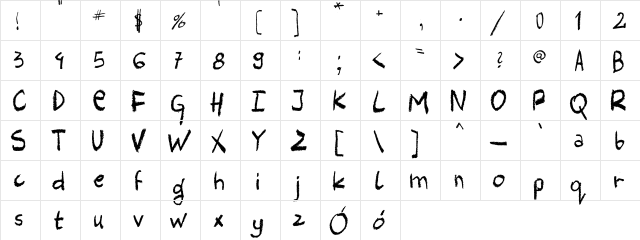
Harlem Clown Regular
Design Context for Harlem Clown Typeface
Harlem Clown is a composed and adaptable typeface that performs quietly and consistently across a wide range of design contexts.
Pro Tip: Use Harlem Clown in both headline and body roles to test its range before committing to a single application.